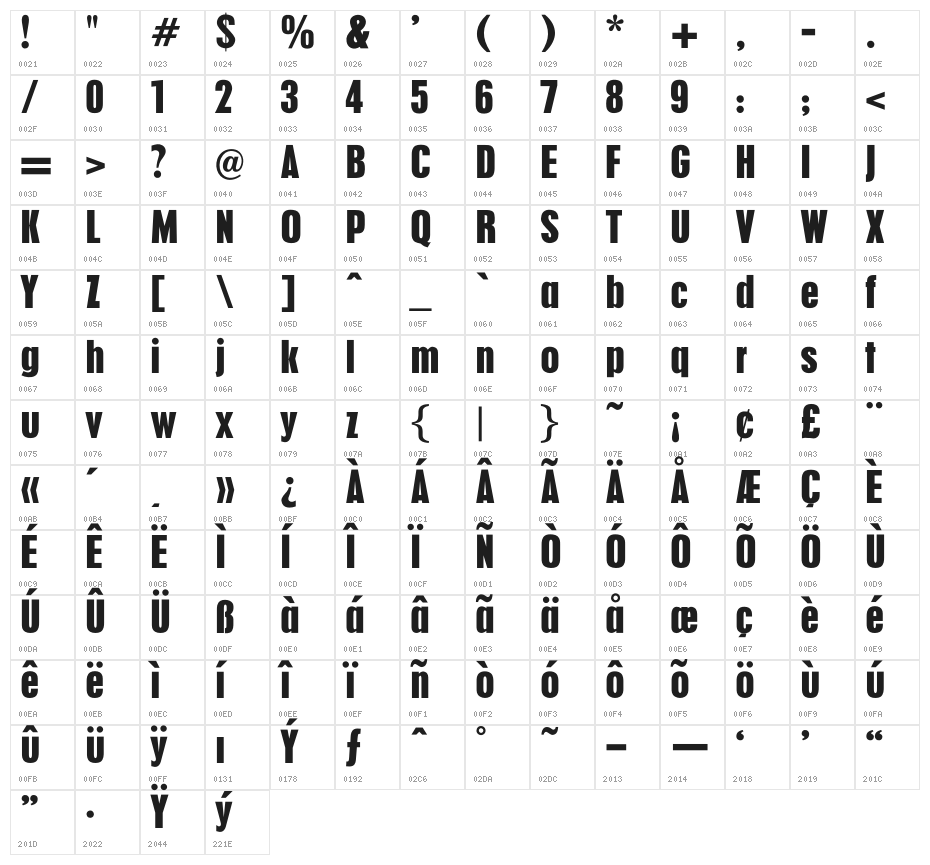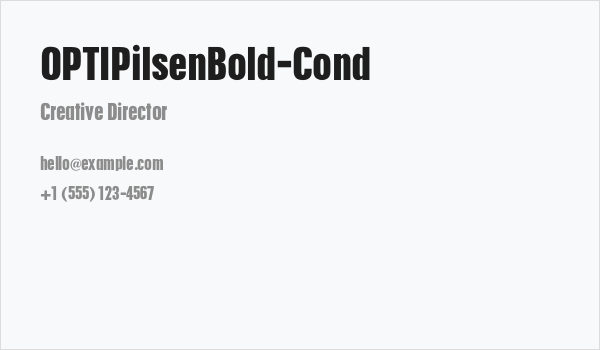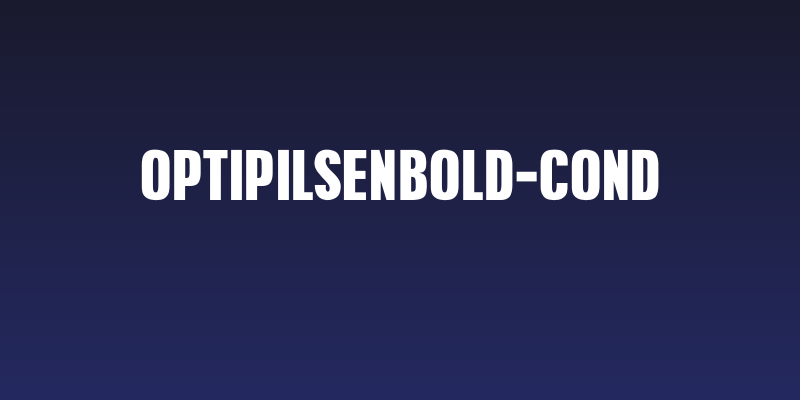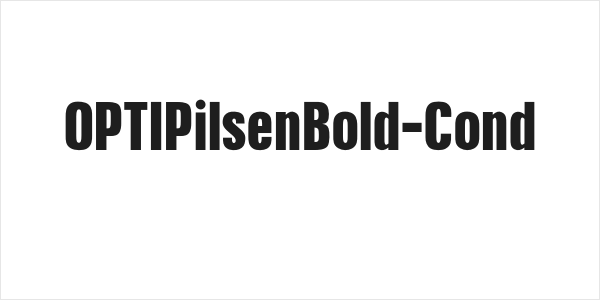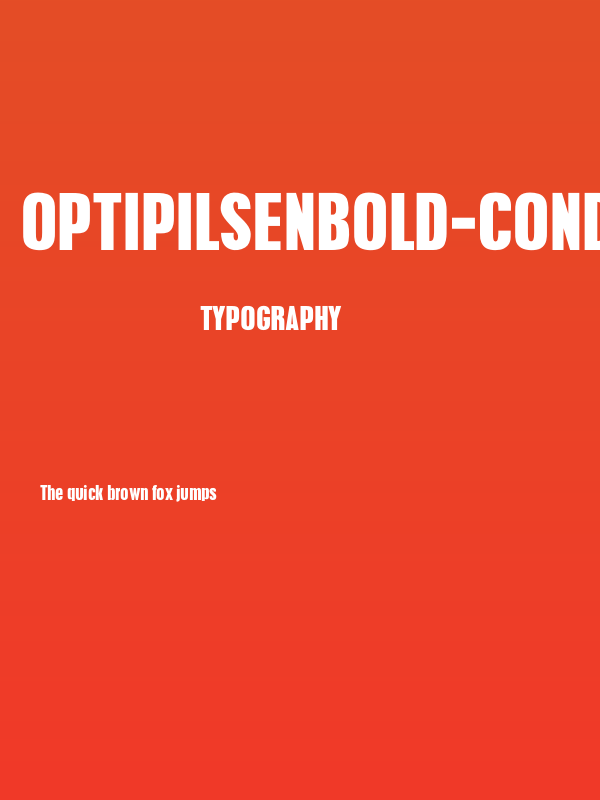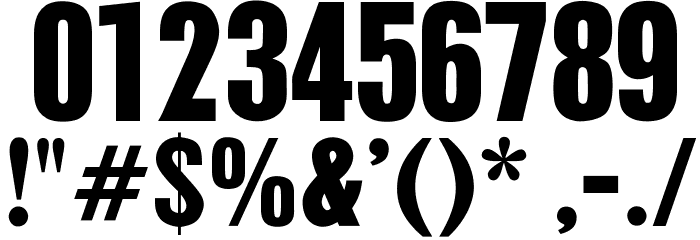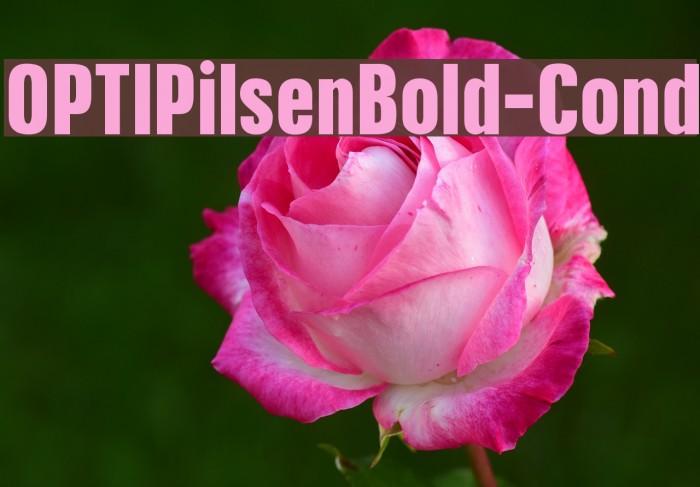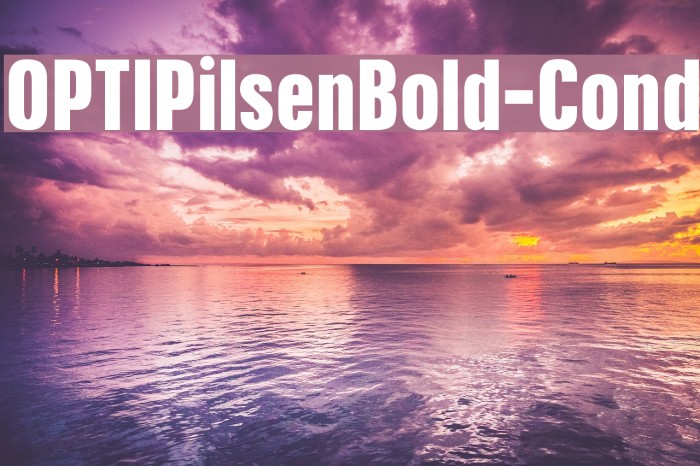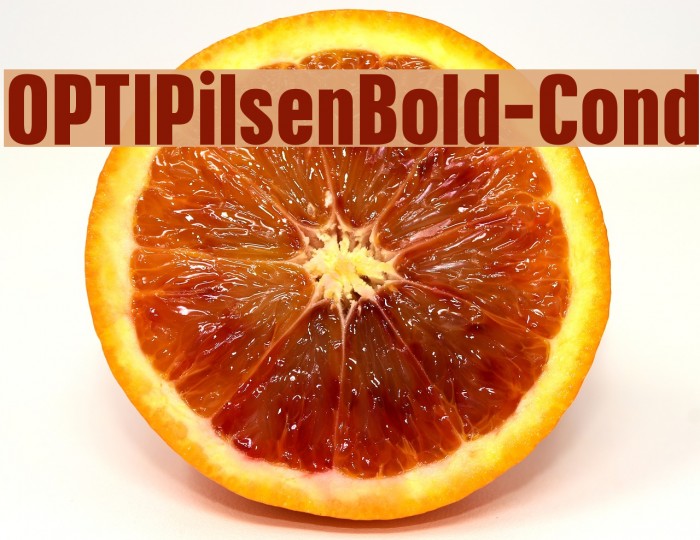
OPTIPilsenBold-Cond Font
This font features a bold and impactful design with strong, thick strokes that convey a sense of authority and confidence. The uppercase and lowercase letters are well-proportioned, maintaining a consistent weight throughout. The numbers are equally bold, ensuring readability and emphasis. Special characters are designed with the same boldness, making them stand out effectively. The overall appearance is clean and modern, suitable for making a strong visual statement.
| Proposed Projects | Ideal for headlines, posters, branding materials, and any project requiring a strong visual impact. |